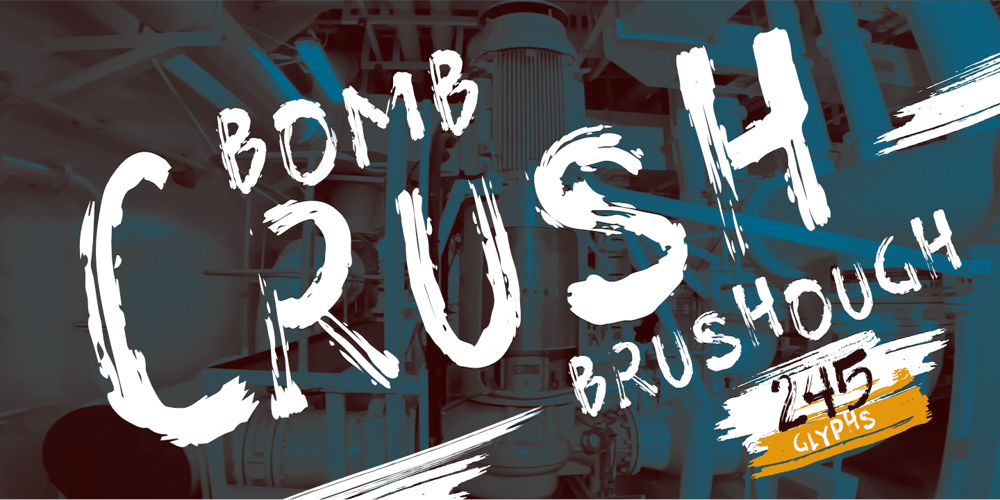
Brushough
Brushough font
Brushough Font Family was designed by Wahyu Eka Prasetya, Afiat Sukmaraga and published by Hati. Brushough contains 1 styles and family package options. Brushough font. Its energetic strokes and youthful vibe make it especially suited for projects aimed at a trend-conscious audience. With its distinctive dry brush look, this font offers a perfect balance of artistic flair and usability, ensuring your designs stand out with a fresh, lively touch